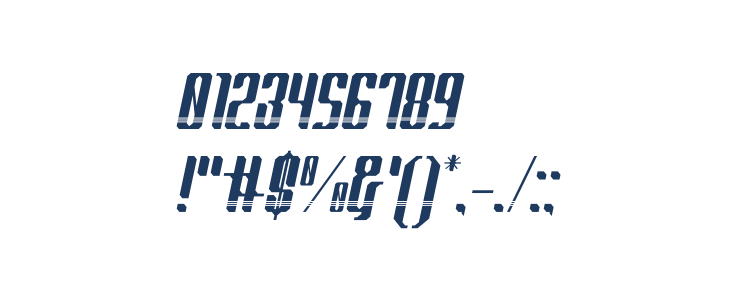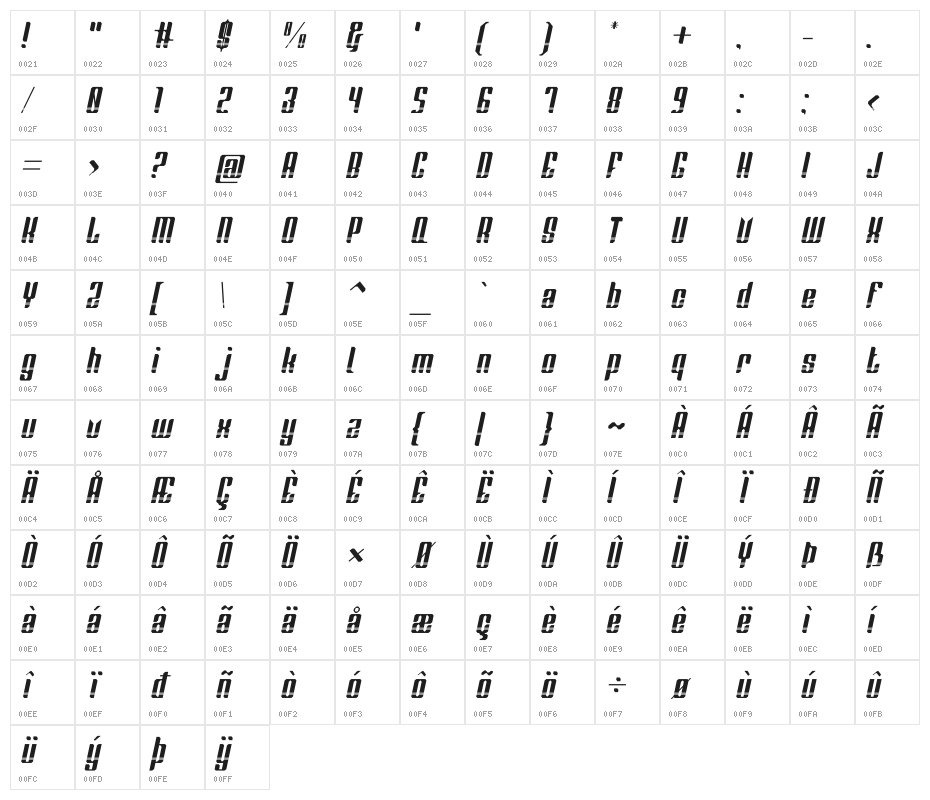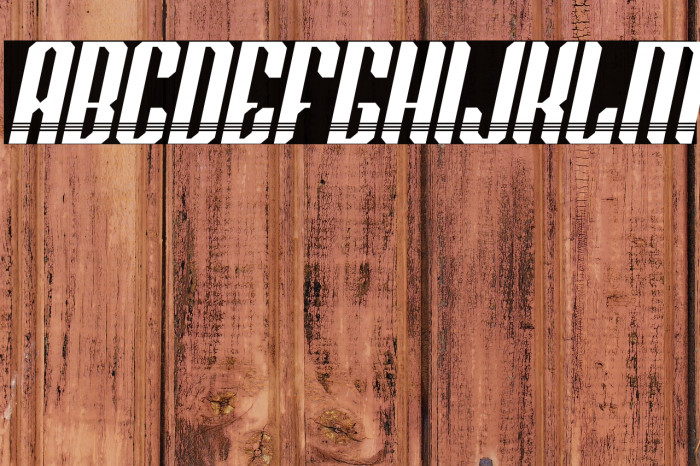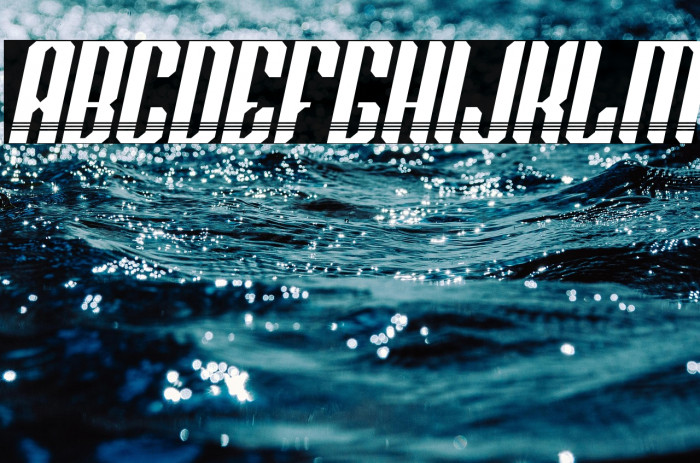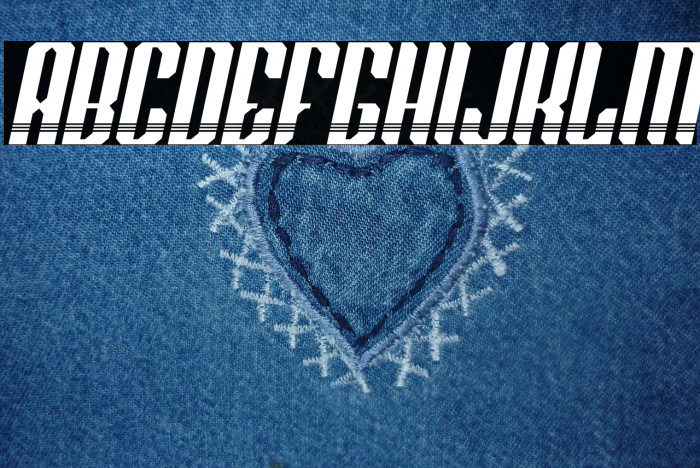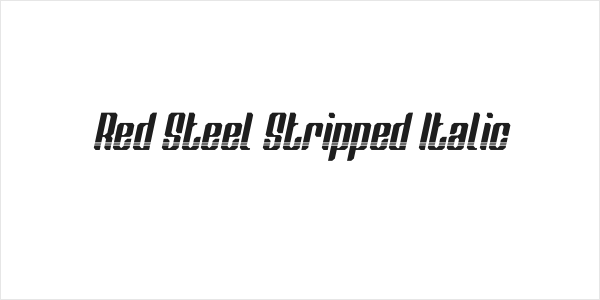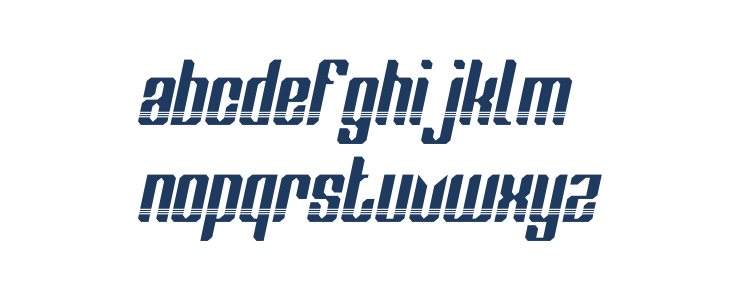
Red Steel Stripped Italic Font
This font features a bold and dynamic design with a distinct italic slant, giving it a sense of motion and energy. The characters are uniquely styled with horizontal stripes running through them, adding a modern and edgy feel. The uppercase and lowercase letters maintain a consistent style, with sharp angles and clean lines. The numerals and special characters follow the same design principles, ensuring a cohesive look across all elements. The font's boldness and striped pattern make it stand out, ideal for projects that require a strong visual impact.